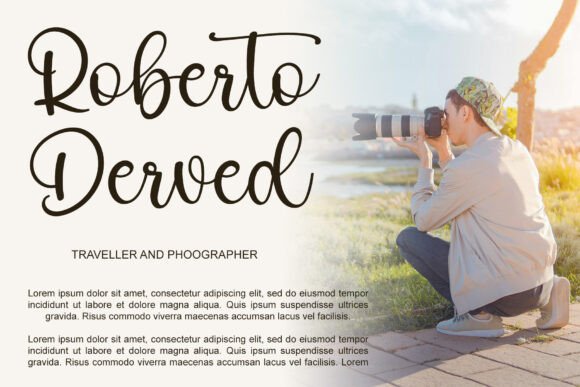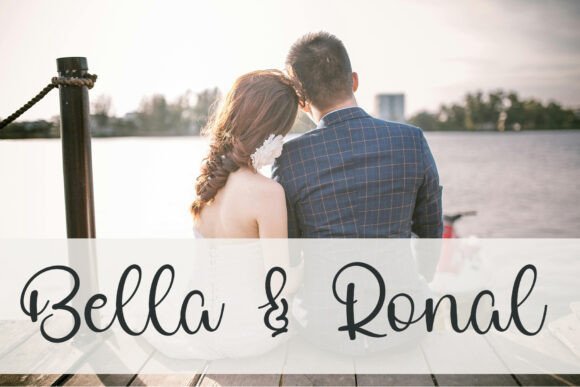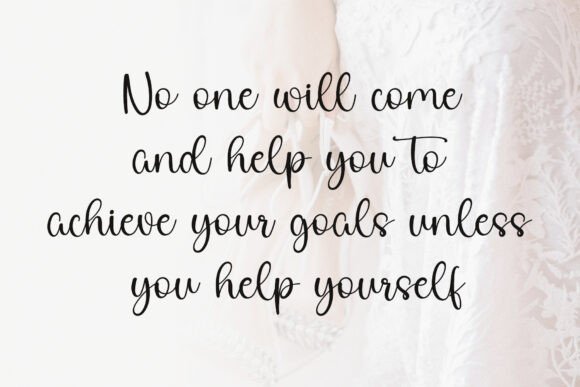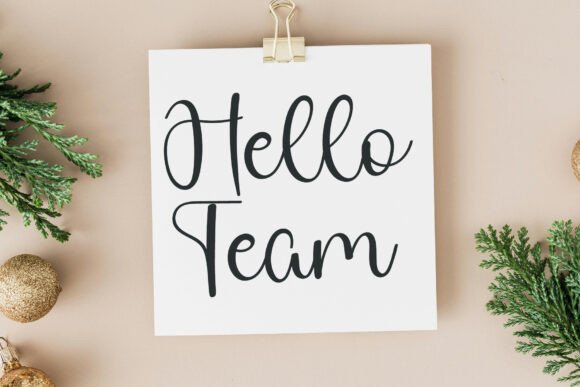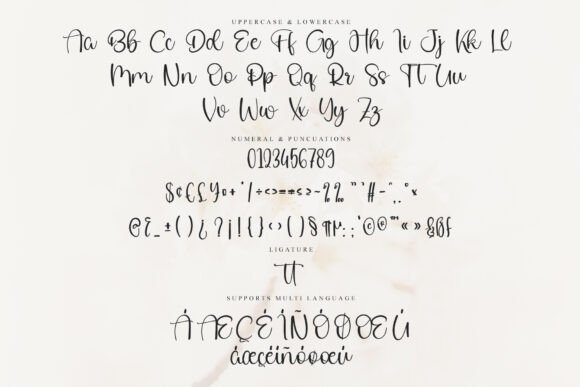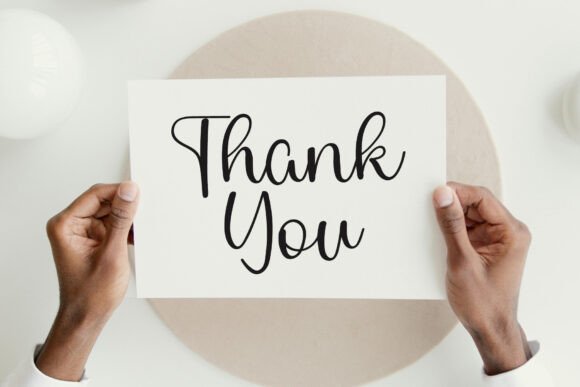
Unleash the Power of Black Rustic Font: Elevate Your Designs with Confidence and Flair
Are you tired of using the same old fonts in your designs? Look no further than the Black Rustic Font, a bold and dynamic script style that is sure to captivate your audience. With its fluid strokes and modern touch, this font is perfect for designers and crafters looking to add a touch of elegance and charisma to their work.
The Beauty of Black Rustic Font
Black Rustic Font is a masterfully designed font that blends the beauty of handwritten calligraphy with a modern and assertive touch. Its bold, fluid strokes exude strength and confidence, making it perfect for creating striking logos, stylish headlines, and eye-catching branding elements. Whether you’re working on a new branding project or looking to revamp your existing design, Black Rustic Font is sure to deliver with confidence and flair.
Key Features of Black Rustic Font
- Bold and Fluid Strokes: The Black Rustic Font features bold, fluid strokes that give it a dynamic and energetic feel.
- Modern and Assertive Touch: With its modern and assertive touch, this font is perfect for designers looking to create bold and eye-catching designs.
- Handwritten Calligraphy: The Black Rustic Font blends the beauty of handwritten calligraphy with a modern twist, making it perfect for creating elegant and sophisticated designs.
- Versatile: This font is versatile and can be used for a variety of design projects, from logos and headlines to branding elements and more.
Uses of Black Rustic Font
The Black Rustic Font is perfect for a variety of design projects, including:
- Logo Design: Create a striking logo that exudes confidence and elegance with the Black Rustic Font.
- Headlines: Use the Black Rustic Font to create stylish and eye-catching headlines that grab attention.
- Branding Elements: Elevate your branding elements, such as business cards, brochures, and more, with the Black Rustic Font.
- Signage: Use the Black Rustic Font to create eye-catching signage that stands out from the crowd.
Why Choose Black Rustic Font?
There are many reasons why designers and crafters choose the Black Rustic Font for their design projects. Here are just a few:
- Unique and Eye-Catching: The Black Rustic Font is a unique and eye-catching font that is sure to grab attention.
- Elegant and Sophisticated: With its elegant and sophisticated design, the Black Rustic Font is perfect for creating high-end designs.
- Versatile: This font is versatile and can be used for a variety of design projects.
- Easy to Read: Despite its bold and fluid strokes, the Black Rustic Font is easy to read, making it perfect for body text and headlines.
Tips for Using Black Rustic Font
Here are a few tips for using the Black Rustic Font in your design projects:
- Use it Sparingly: While the Black Rustic Font is bold and eye-catching, it can be overwhelming if used too much. Use it sparingly to create emphasis and draw attention.
- Pair it with Other Fonts: The Black Rustic Font pairs well with other fonts, such as sans-serif fonts. Experiment with different pairings to find the one that works best for your design.
- Experiment with Colors: The Black Rustic Font looks great in a variety of colors. Experiment with different colors to find the one that works best for your design.
The Black Rustic Font is a powerful and elegant font that is sure to elevate your designs with confidence and flair. With its bold, fluid strokes and modern touch, this font is perfect for designers and crafters looking to create striking logos, stylish headlines, and eye-catching branding elements. Whether you’re working on a new branding project or looking to revamp your existing design, the Black Rustic Font is a great choice.